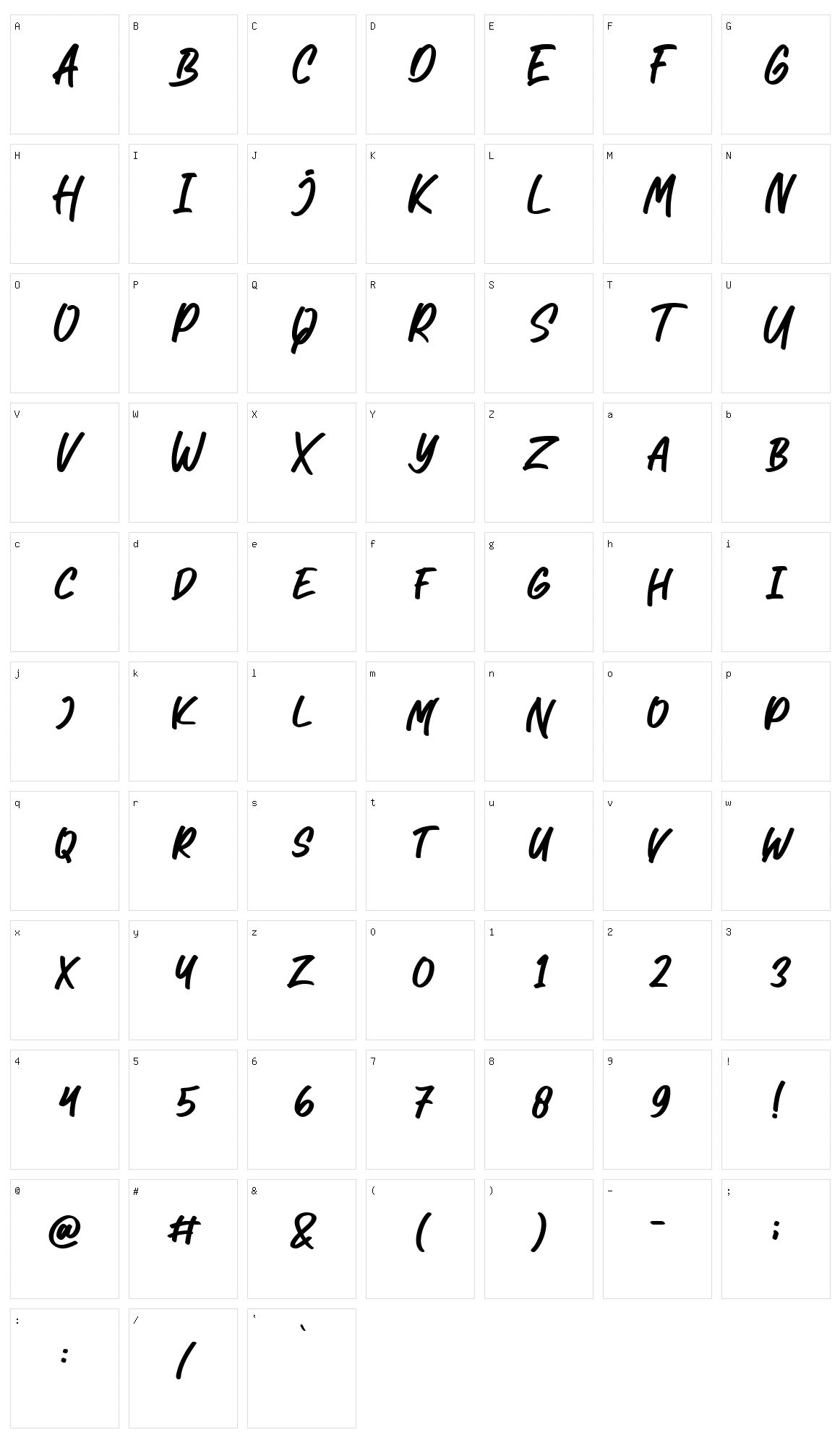
The free font Brotherhood is carefully designed by Creatype Studio, showcasing a thoughtful balance of creativity and usability and falls under the Script font style. When you download the ZIP file, it contains only 38.35 KB of font files, making it lightweight and quick to download. Please review the license details below to understand permitted usage and distribution rights. If license information is not available, we recommend using this font for personal projects only or contacting the author directly for commercial usage permissions.